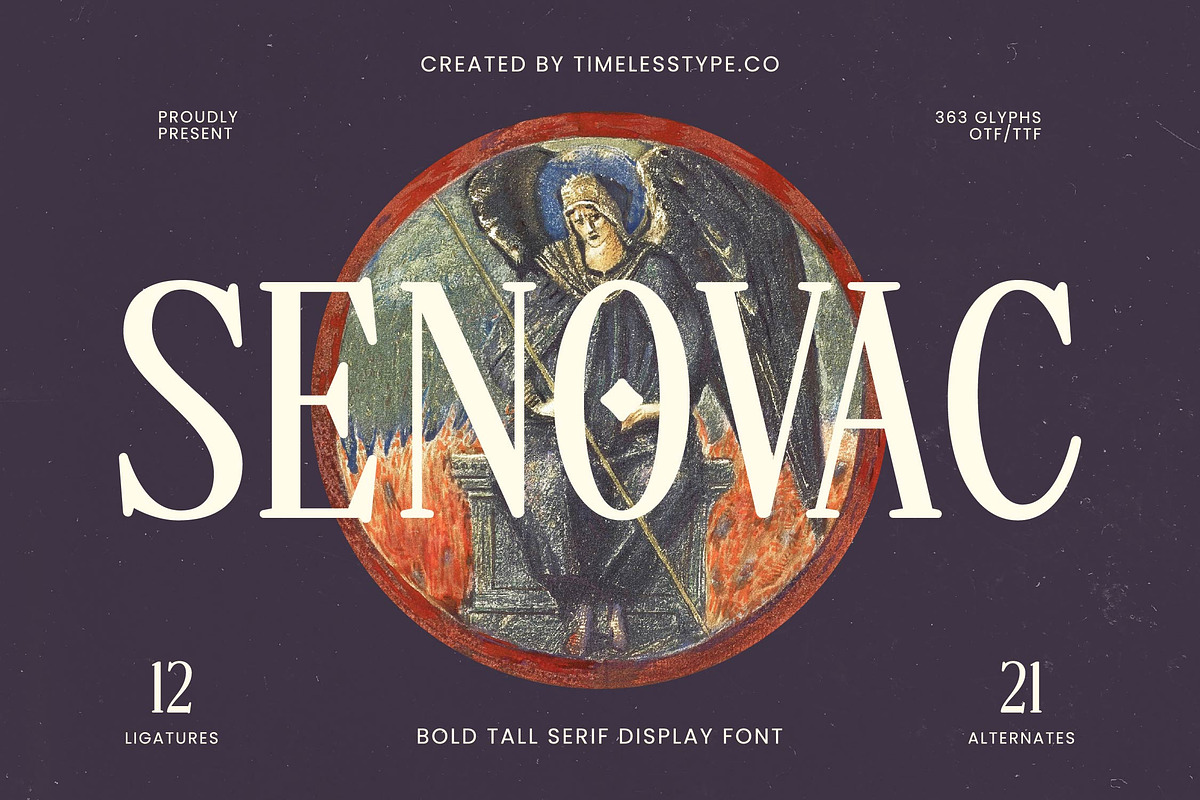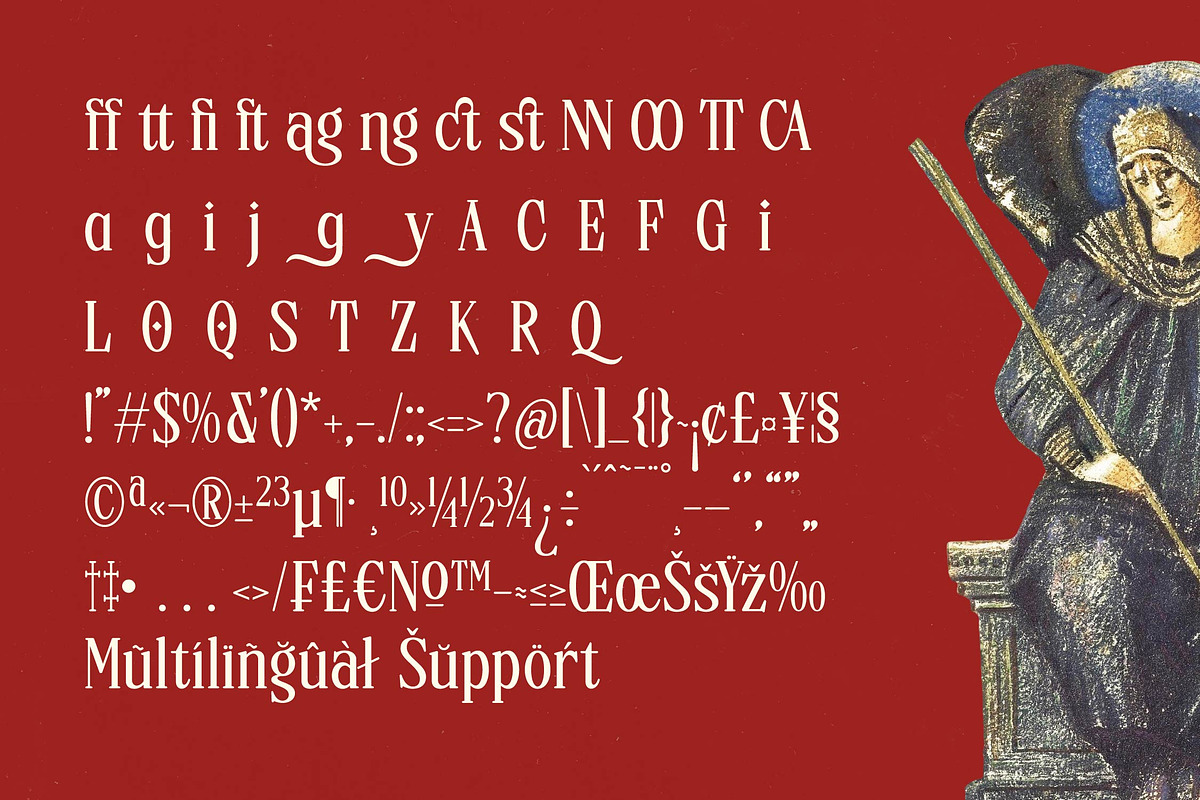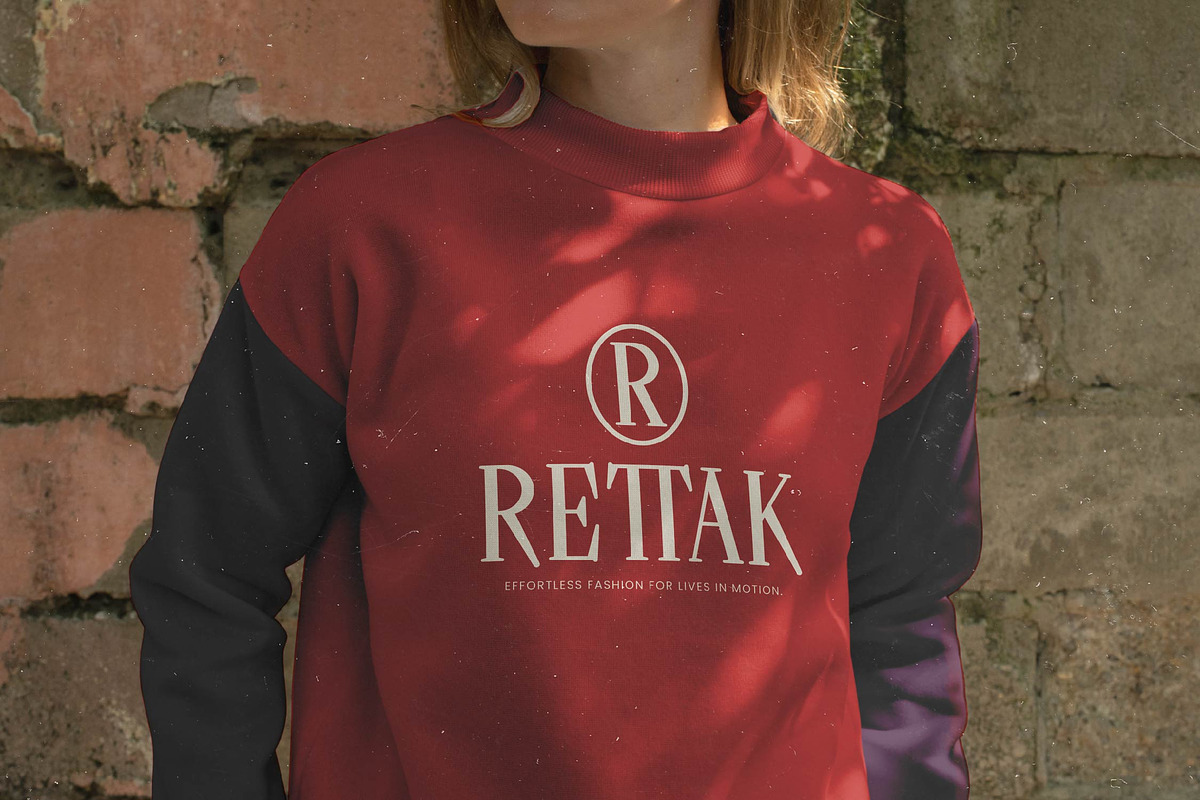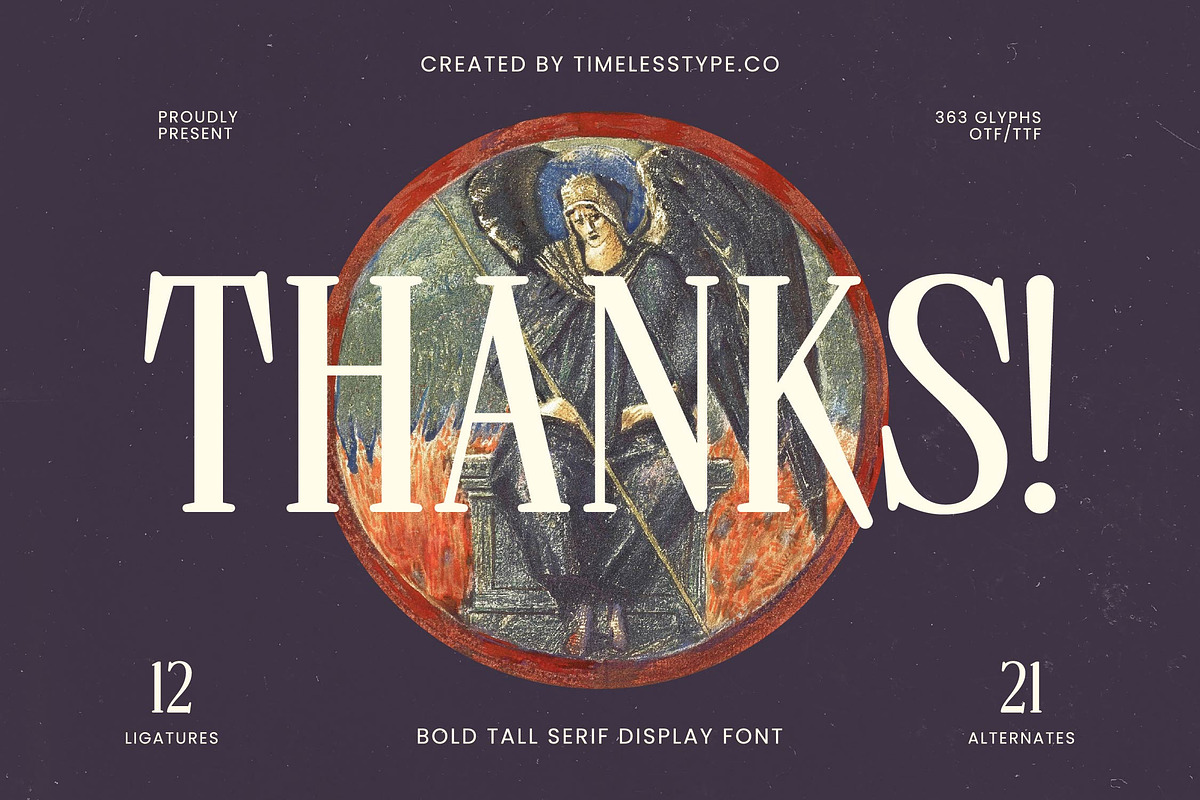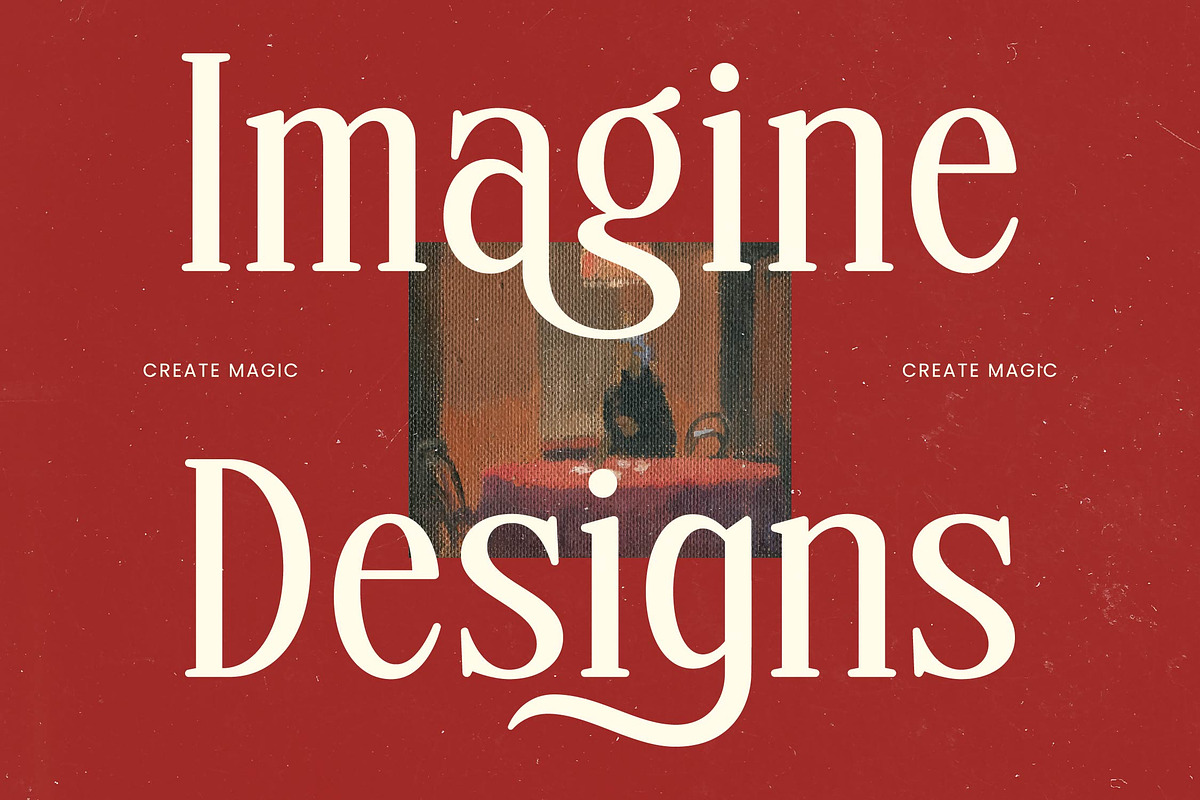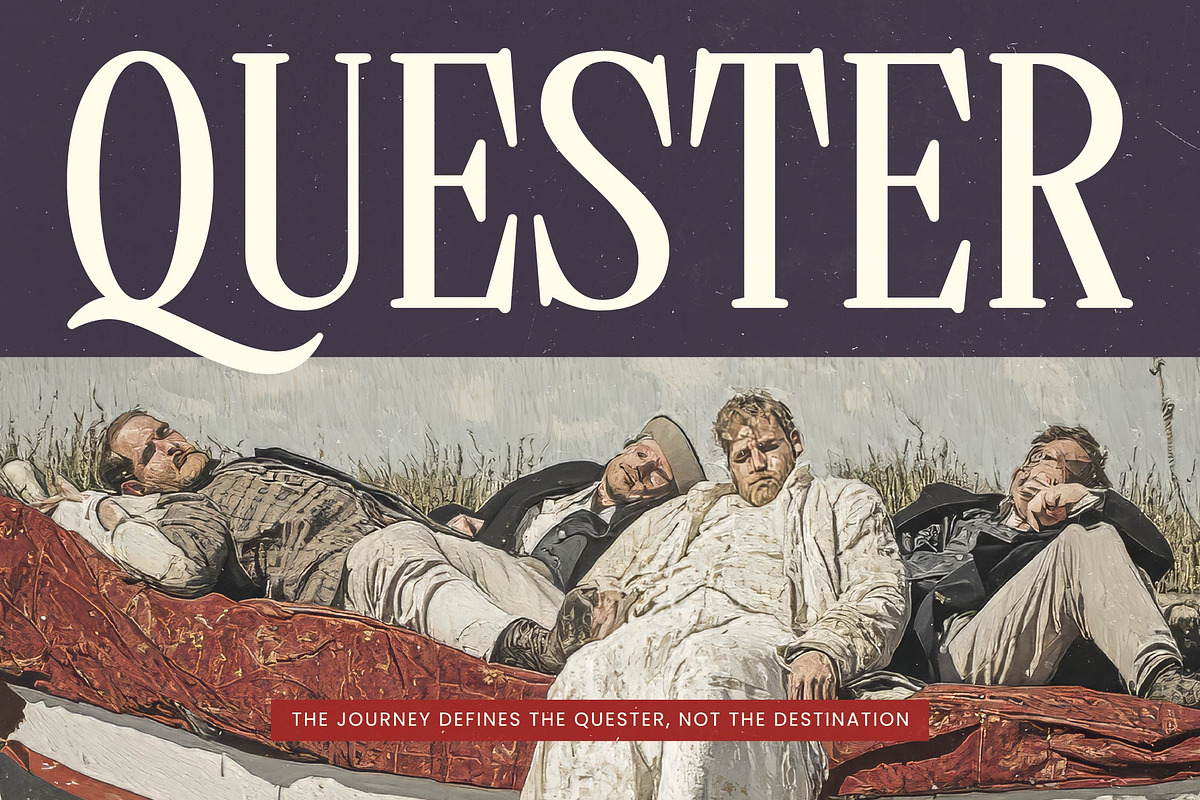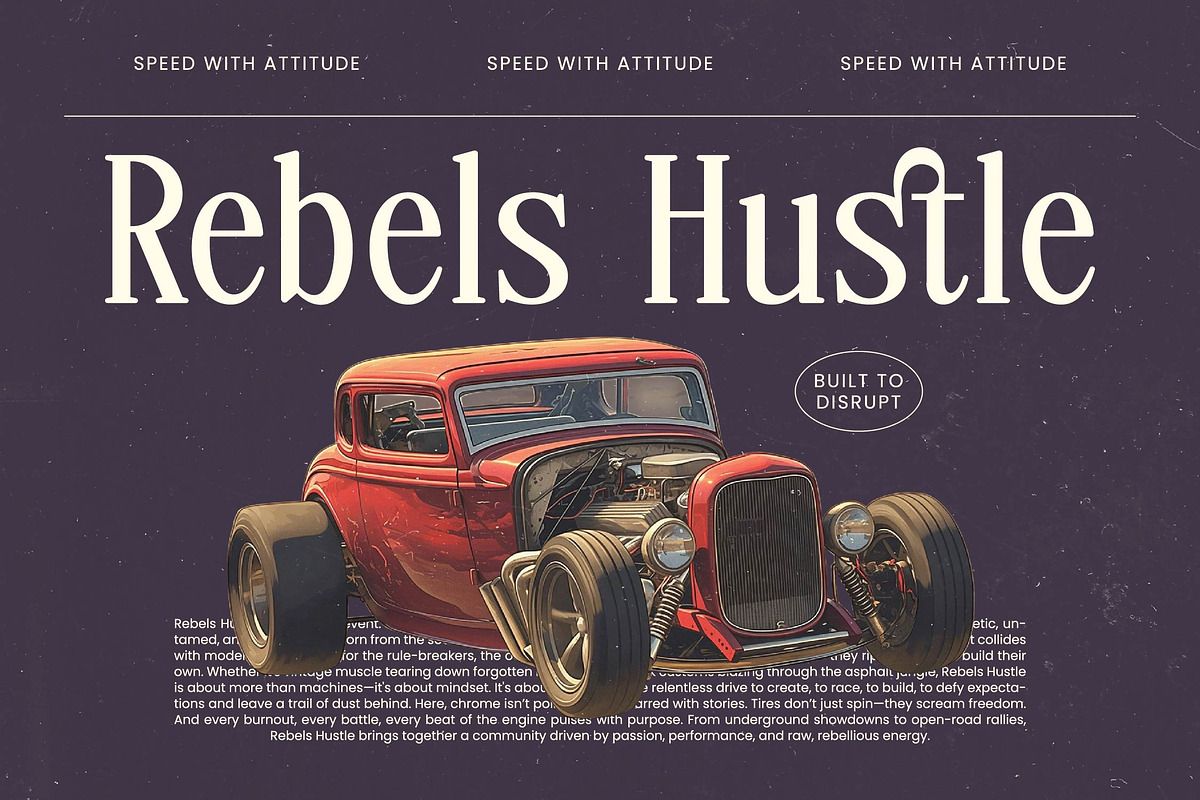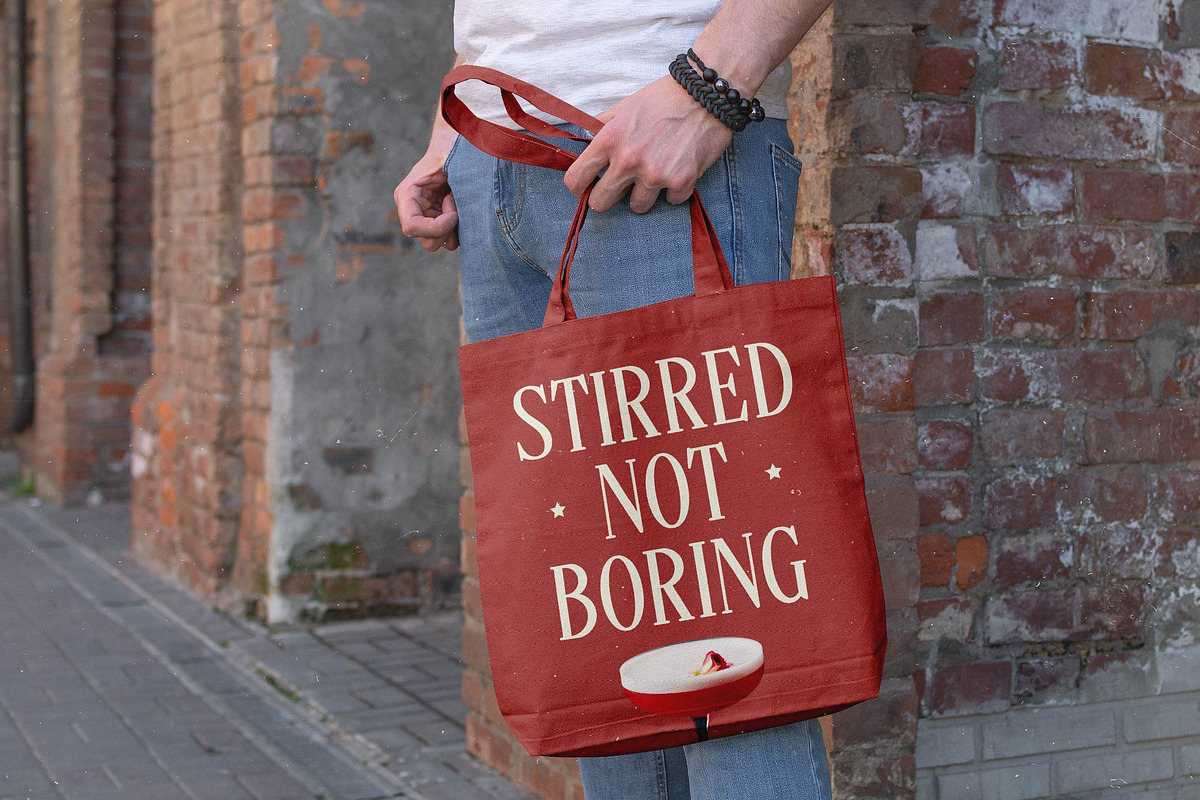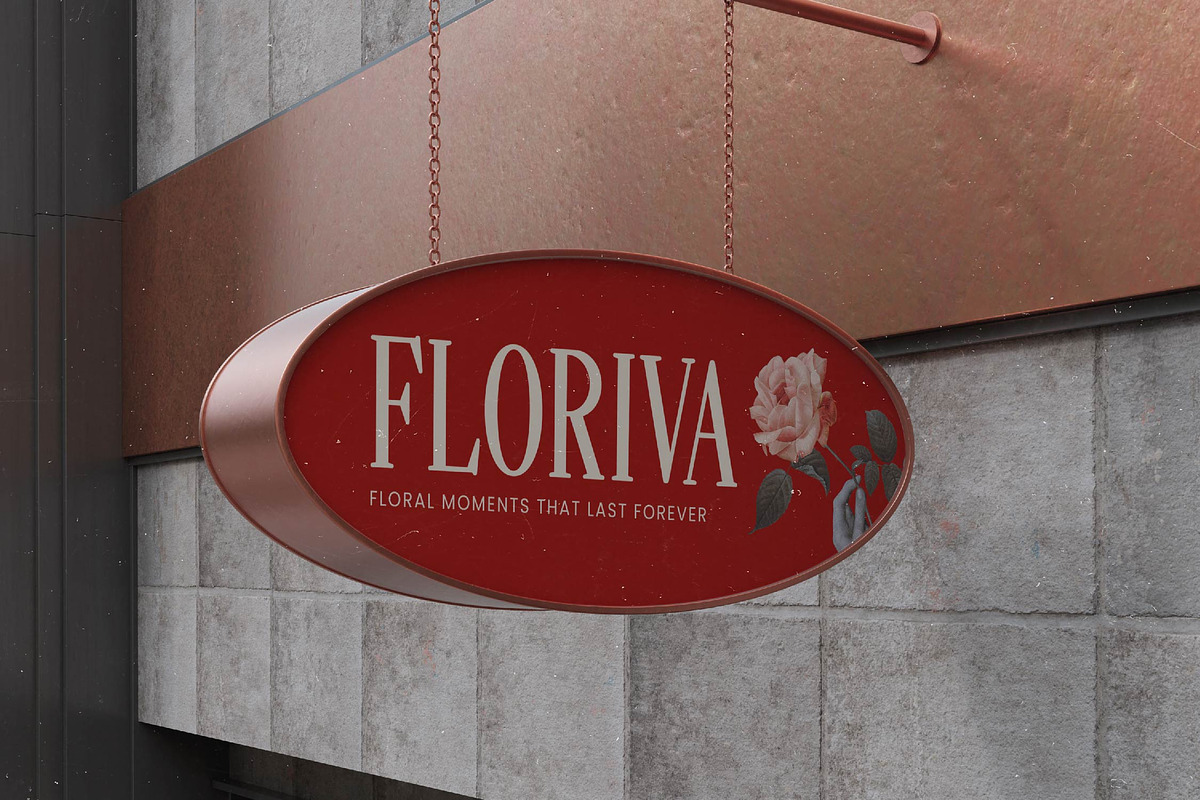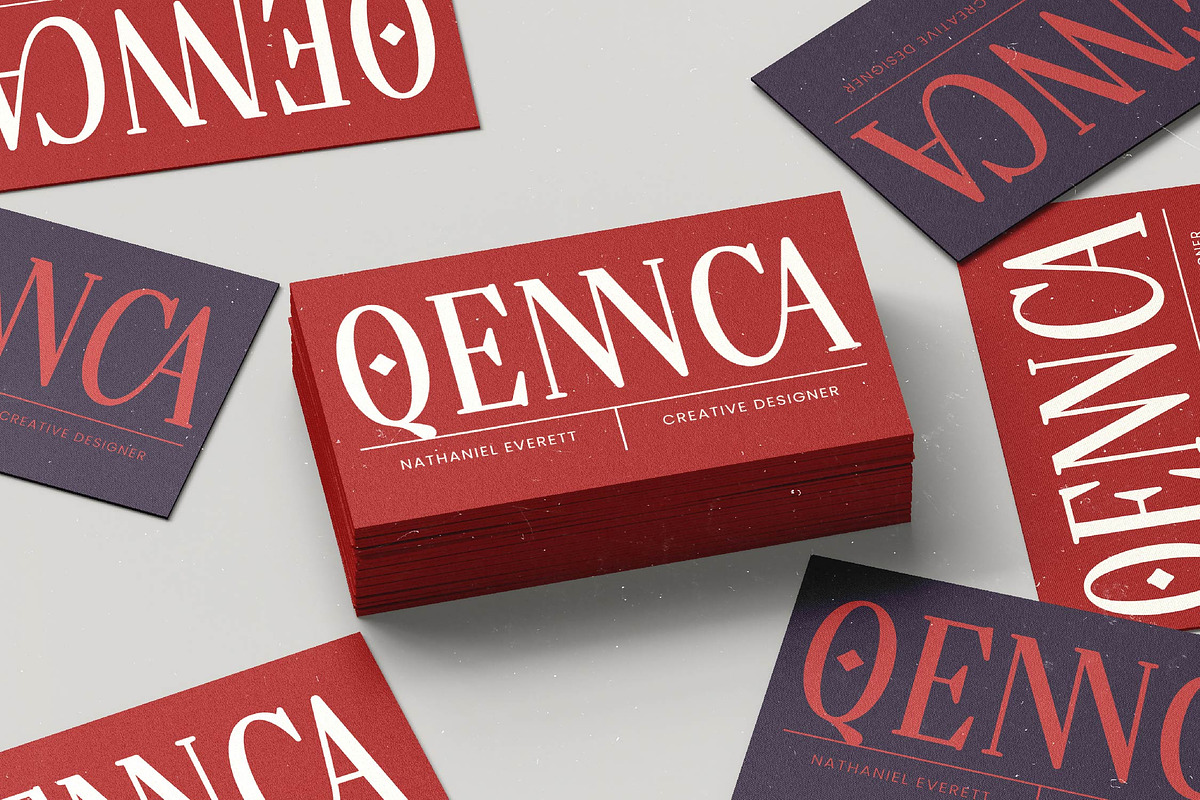
Senovac Bold Tall Serif Display
Experience the hauntingly beautiful presence of Senovac, a typeface that commands attention with its towering elegance and timeless soul. This bold tall serif display font is meticulously crafted to bring a sense of divine authority and artistic gravity to every design project it touches.
Drawing inspiration from classical Renaissance art and the dramatic tension of mystical iconography, the font captures a bridge between the ancient and the contemporary. Its elongated forms and sharp serifs evoke the feeling of hand-carved stone inscriptions found in hidden cathedrals and forgotten scrolls, creating a visual atmosphere that is both historical and avant-garde.
Senovac defines the essence of luxury typography, blending a modern serif display sensibility with a raw, high-contrast serif aesthetic. It is an editorial font built for maximum branding impact, offering a sophisticated weight that feels both grounded and ethereal for designers seeking a unique signature look.
Perfectly aligned with the current modern serif trend, this typeface caters to the rising demand for editorial display fonts that break away from traditional structures. It taps into the character-driven typography movement, providing designers with a unique voice that stands out in a crowded digital landscape and social media environment.
This versatile typeface is the ultimate choice for high-end logo design and comprehensive branding identity systems that require a touch of drama. From striking editorial layouts and luxury packaging to sophisticated wedding invitations and avant-garde fashion lookbooks, it adapts seamlessly to premium creative contexts.
The font package is fully equipped with professional features including 12 unique ligatures and 21 stylistic alternates to customize your compositions. Extensive multilingual support and international characters ensure global accessibility, while custom swashes provide that final artisanal touch for bespoke typesetting.
- Ligature 12 Alternate 21